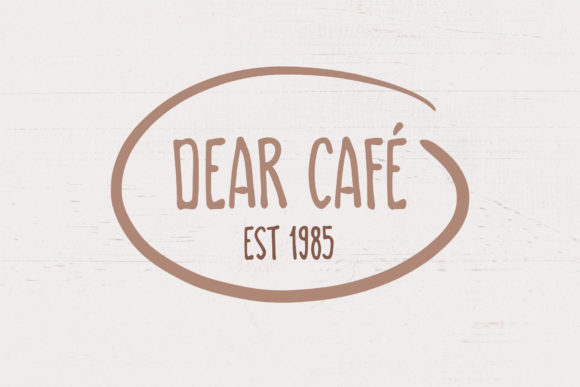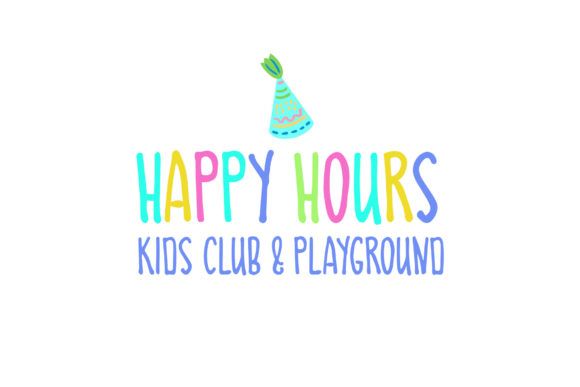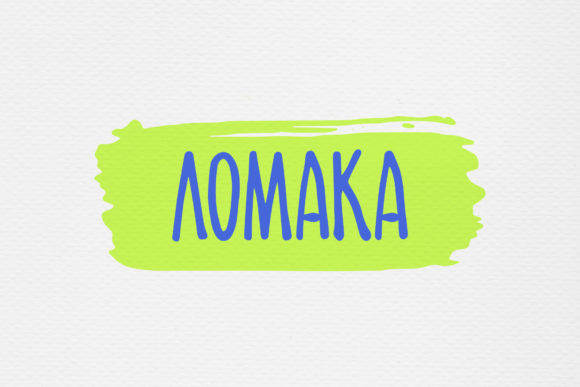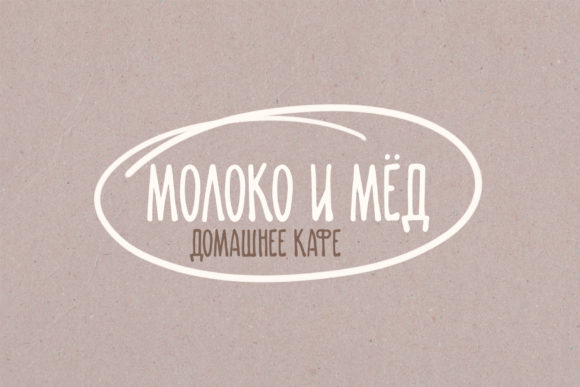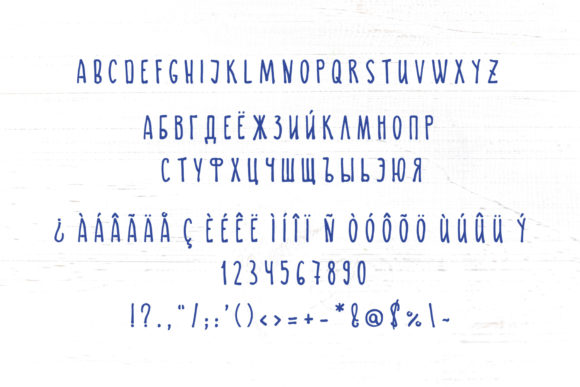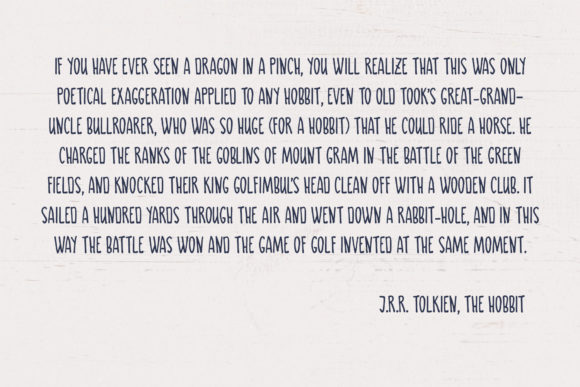
Introduction to Lomaka Font
Remember that moment when you were brainstorming ideas for a creative project and stumbled upon the perfect font to bring your vision to life? For many designers, finding the right font can be the difference between a good design and an amazing one. This is exactly what happened when I discovered the Lomaka Font – a delightful, handwritten font that has since become a staple in my design arsenal.
As a design resource, Lomaka Font offers a high-quality, authentic look and feel that’s perfect for creating a personal and realistic touch in your designs. Whether you’re working on a chalkboard quote, teaching material, or any other creative project, this font is sure to add a unique charm to your work. And the best part? It’s available for free download with a transparent background, making it easy to incorporate into any design.
With its versatility and charming aesthetic, it’s no wonder why Lomaka Font has become a valuable asset for designers looking to elevate their designs and stand out from the crowd.
Key Features of Lomaka Font
- Unique, high-quality design with a transparent background, making it perfect for creative projects.
- Designed with a modern aesthetic, Lomaka Font is ideal for use in digital and print media, including logos, branding materials, and more.
- With its sleek, minimalist design, Lomaka Font is a versatile resource for any creative project, from business cards to websites.
Honest Review: Lomaka Font
As a designer, I’m always on the lookout for high-quality design resources to elevate my creative projects. Recently, I came across the Lomaka Font, and I must say, it’s a great find!
What works well is the Lomaka Font’s unique and playful design. It’s perfect for adding a touch of whimsy to your designs. The font is highly versatile and can be used for a variety of creative projects, from logos to social media graphics. I also appreciate that it’s available for free download, making it an excellent resource for designers on a budget.
- Unique and playful design, perfect for adding a touch of whimsy to your designs
While the Lomaka Font is a great resource, there are a few limitations to consider. ⚠️ The font may not be suitable for formal or professional projects, as it’s quite playful and may not convey the desired level of sophistication.
Overall, I’m impressed with the Lomaka Font and would definitely recommend it to designers looking for a high-quality design resource for their creative projects. ✨ It’s a great addition to any design library, and I’m excited to see how designers will use it in their projects!
The Lomaka Font is a versatile design resource that can be used in a variety of creative projects, including logos, brochures, business cards, and more. Its high-quality design makes it perfect for use in free download templates and design assets.